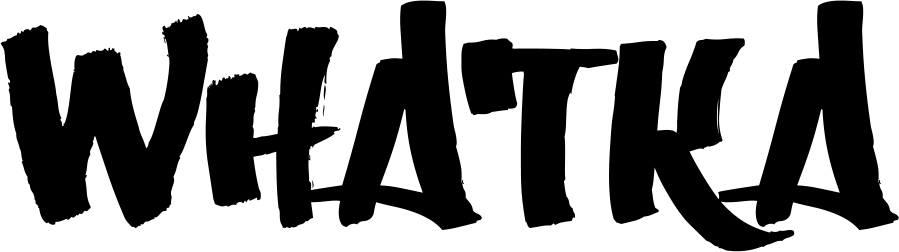
Whatka Font
Designed byRoland Hormann
Whatka is bold and aggressive. It is a graffiti font that gives off an urban feel. If you want your writing to appear informal and casual Whatka makes a perfect choice.
It comes without the lowercase letters and the level of readability is not that high so it works best for headlines and not the body copy! You can use this aggressive bold font in product packaging, clothing, greeting cards, and so on!